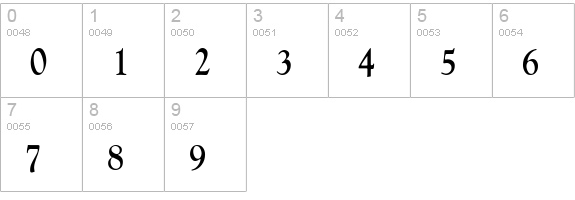
GoudyCnd-Bold is a strong, high-contrast variant in the GoudyCnd typeface family \xE2\x80\x94 well suited to headlines, attention-grabbing titles, and strong calls-to-action.
GoudyCnd-Bold is a striking and elegant font that exudes sophistication and style. With its bold and distinctive letterforms, this typeface demands attention and adds a touch of class to any design project. The strong, thick strokes of GoudyCnd-Bold make it perfect for headlines, titles, and other prominent text elements. What sets GoudyCnd-Bold apart is not only its timeless design but also the fact that it is available for free download at FontsMarket.com. This means that you can easily access this high-quality font without any cost, making it a valuable addition to your font library. Whether you are working on a print design, website, or any other creative project, GoudyCnd-Bold will elevate your work with its bold and sophisticated aesthetic. Download GoudyCnd-Bold for free today from FontsMarket.com and enhance your designs with this exceptional font choice.